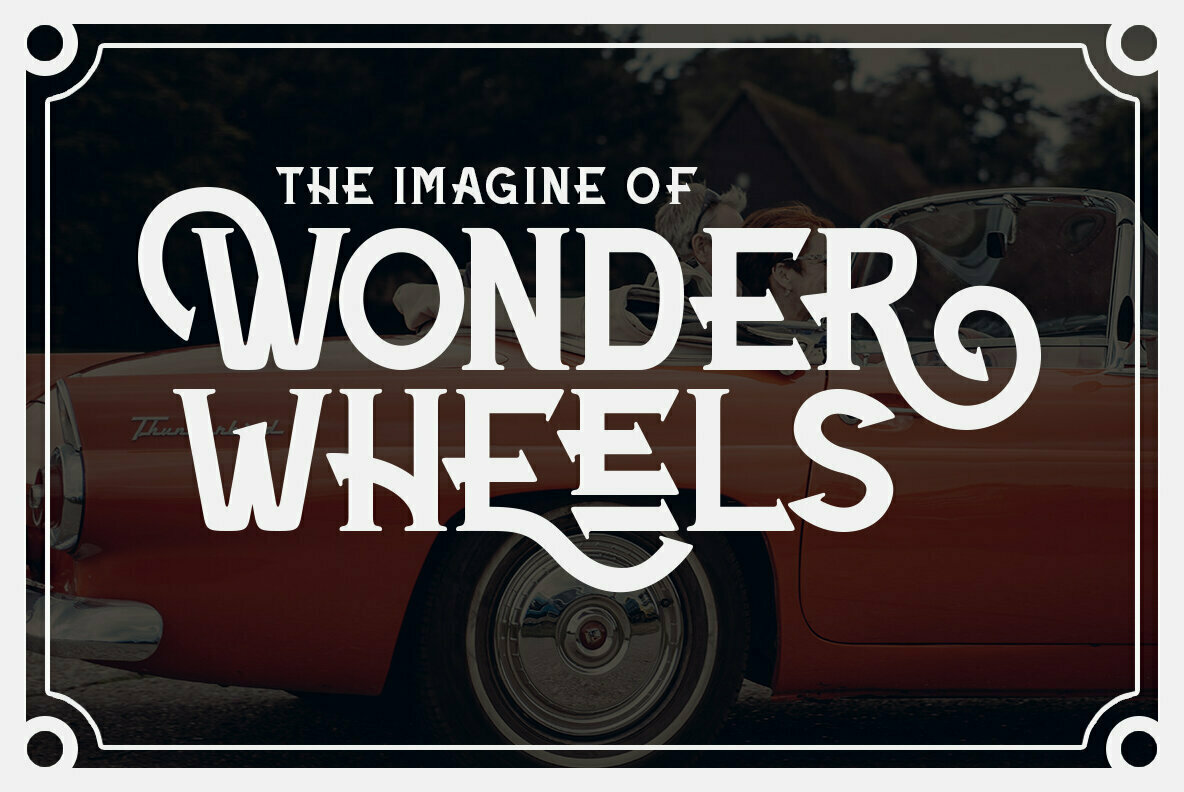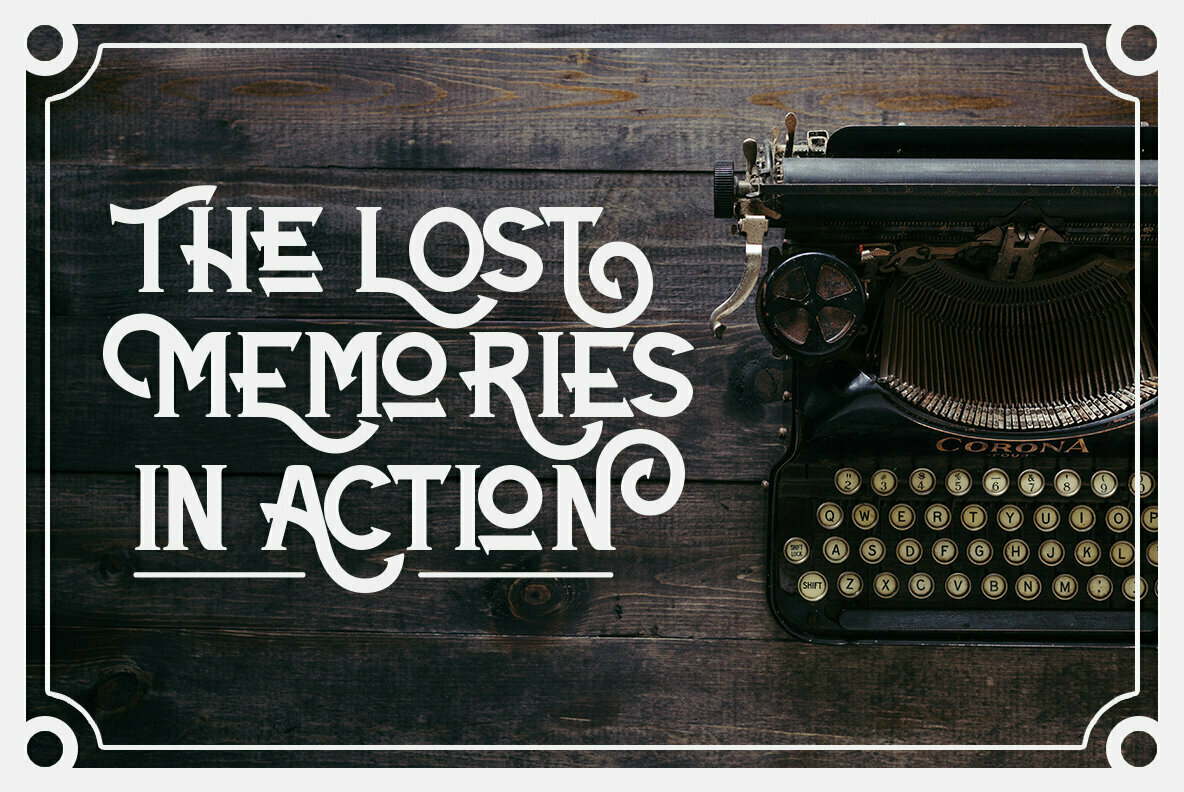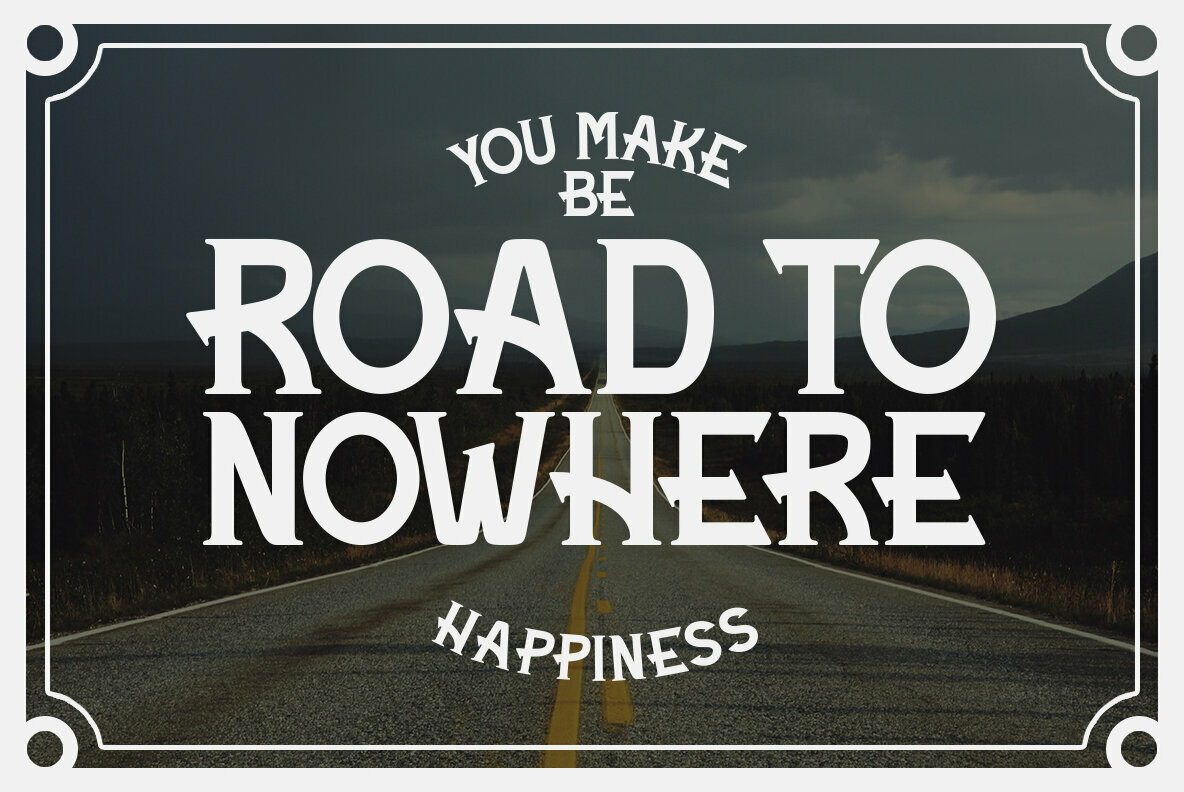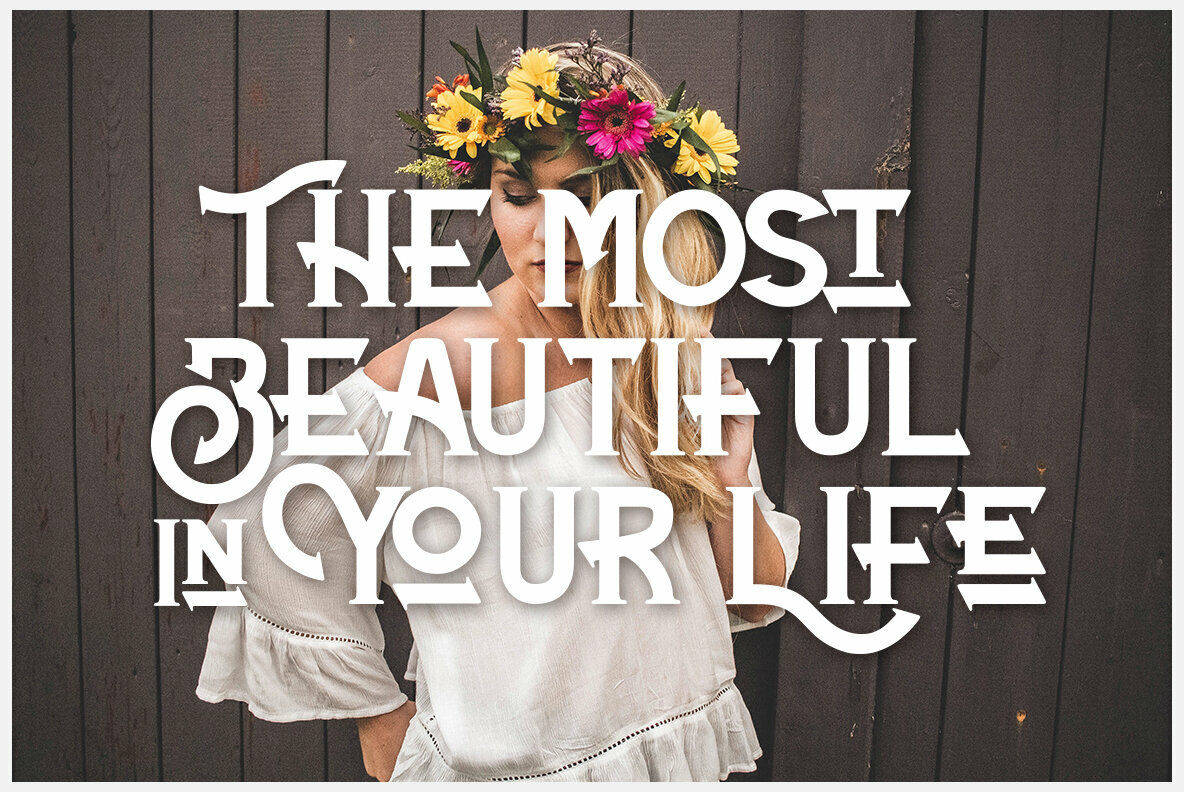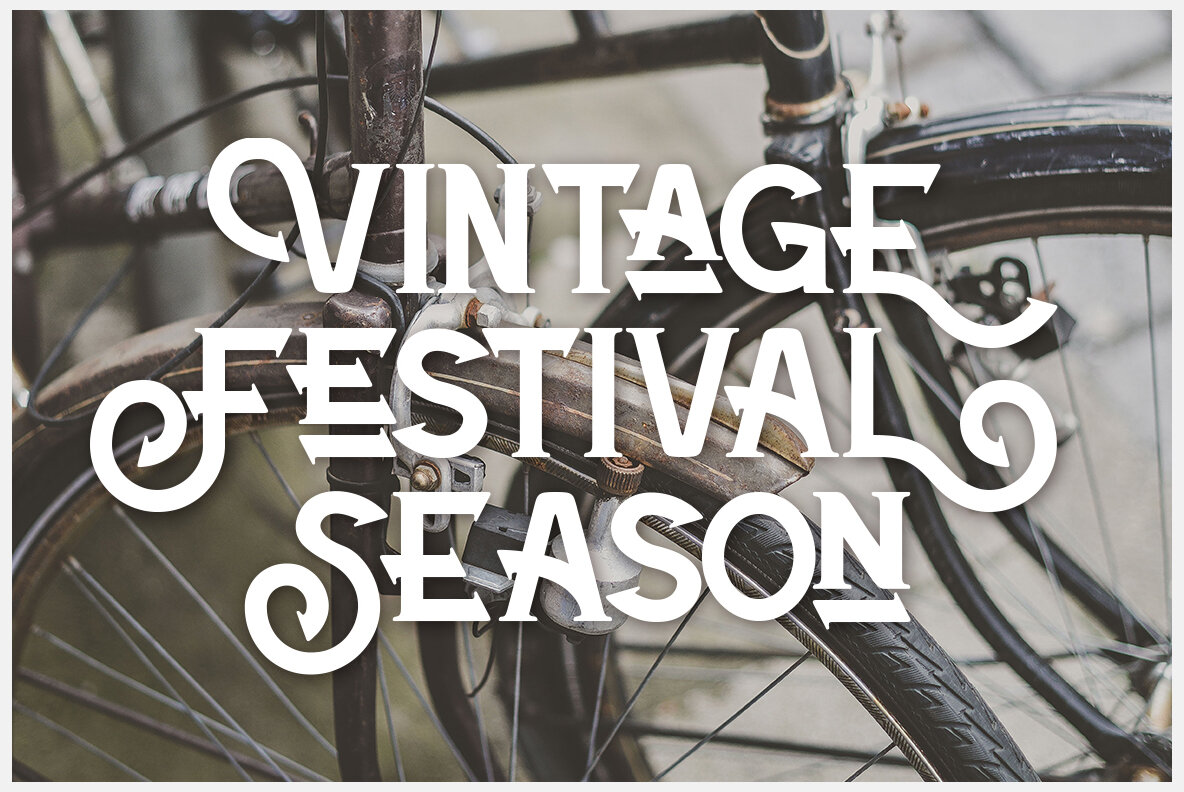
Maigreds Font
Maigreds
Maigreds exudes a simple yet classic charm that sets the tone for a variety of design projects. This vintage display font blends timeless aesthetics with legibility, making it an excellent choice for those seeking both style and readability. Perfect for numerous applications, Maigreds adapts seamlessly to logos, badges, packaging, and more. From apparel designs like t-shirts to formal wedding invitations, this font suits a wide range of creative needs.Maigreds: Vintage Display Font with Ease
Versatile Features